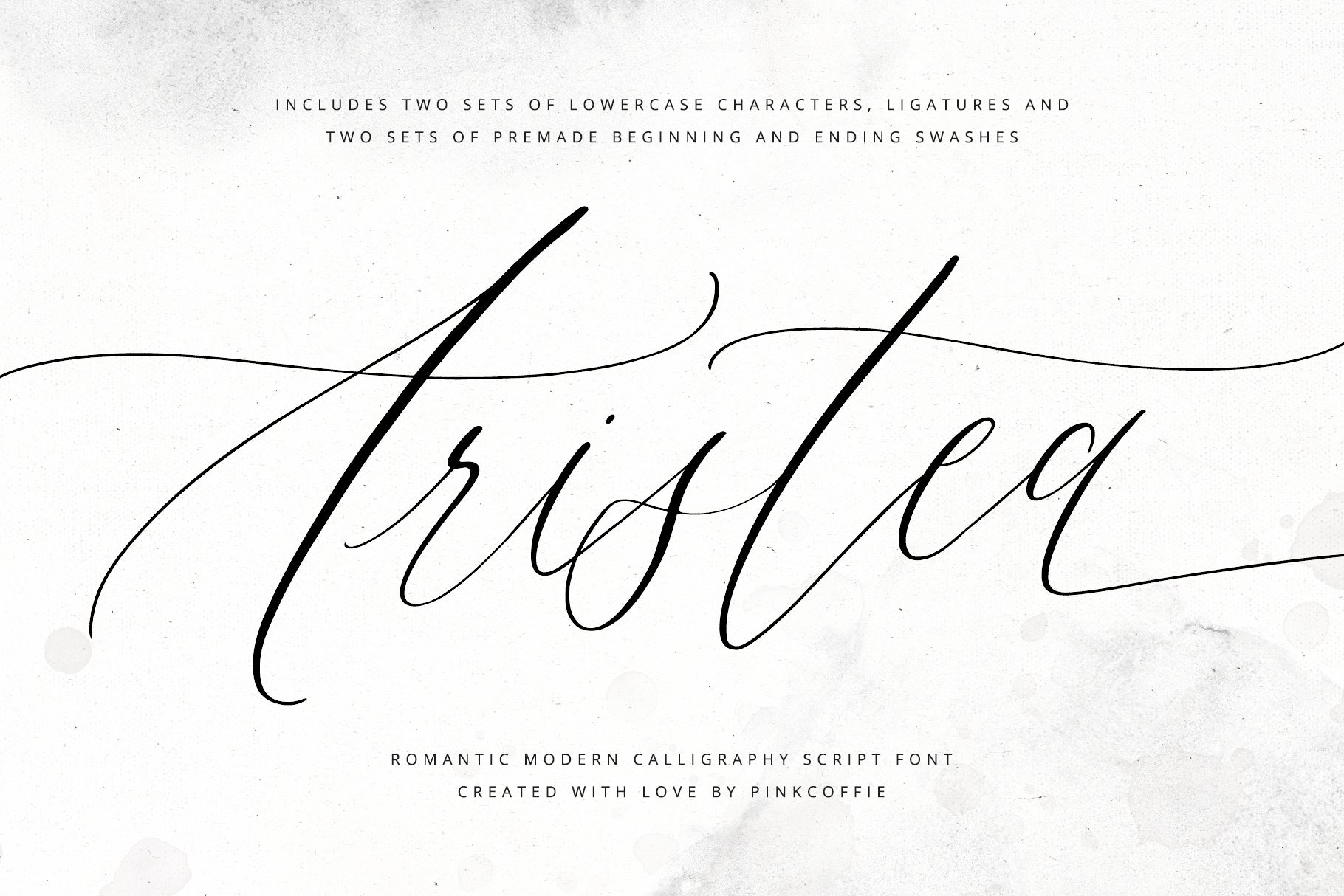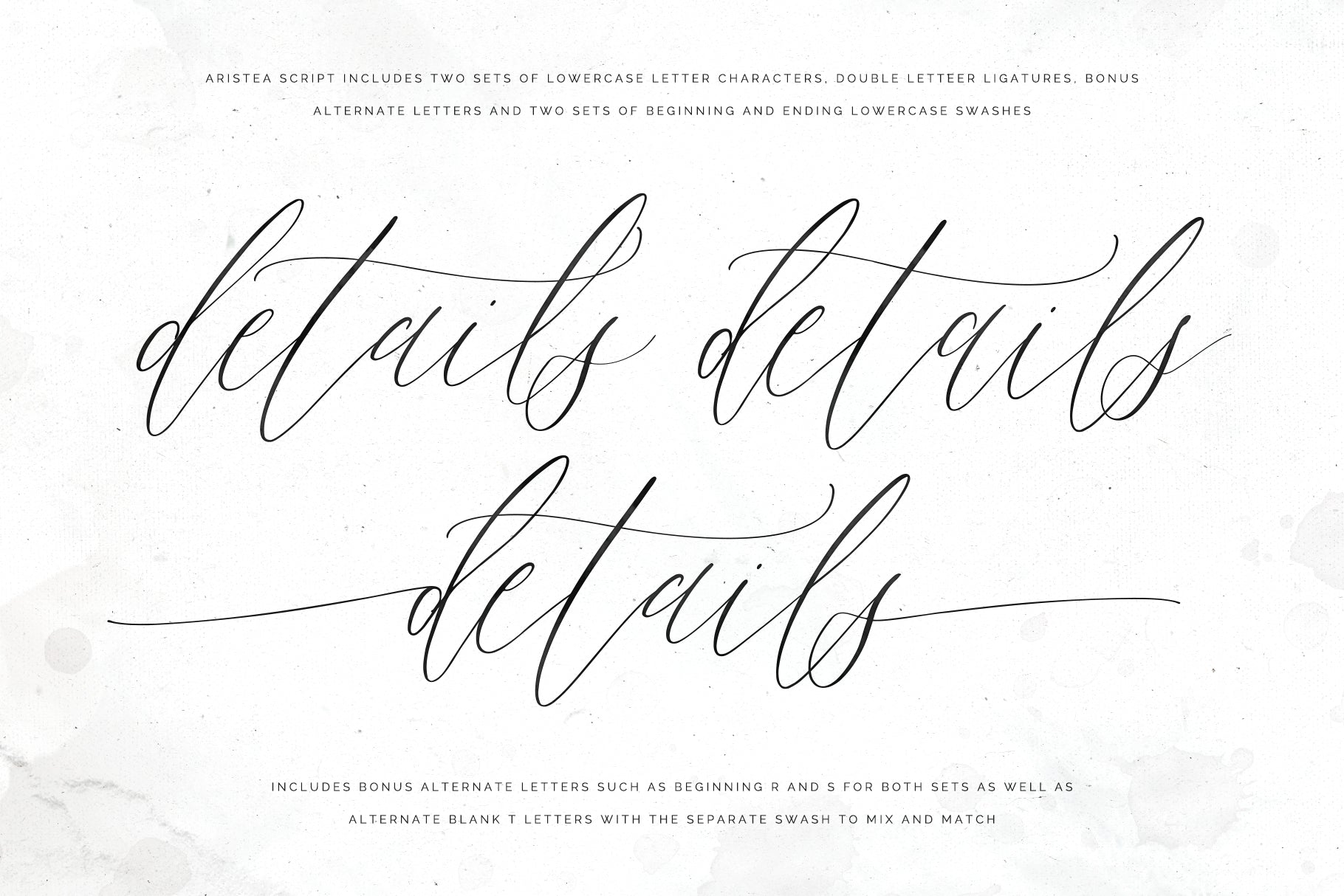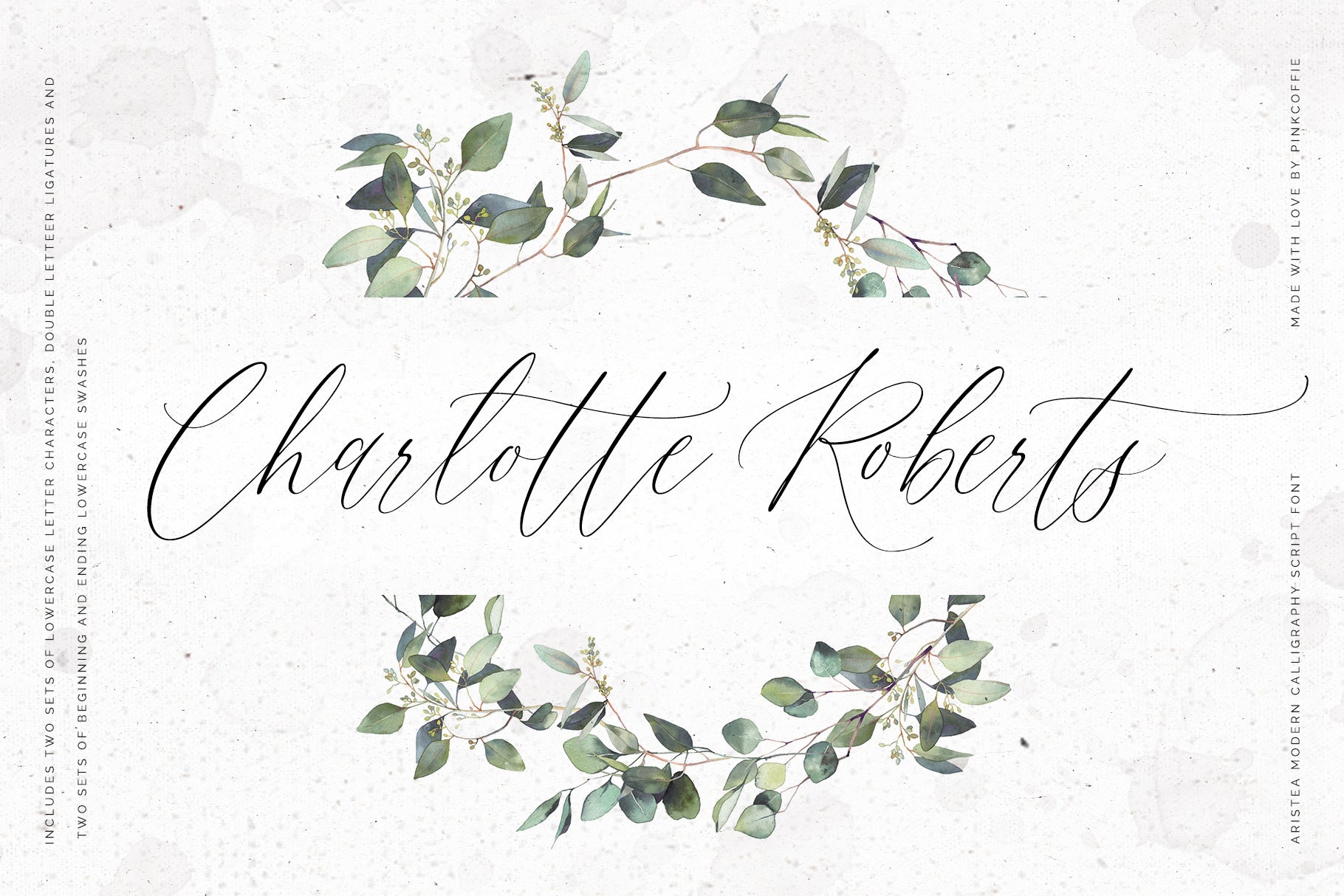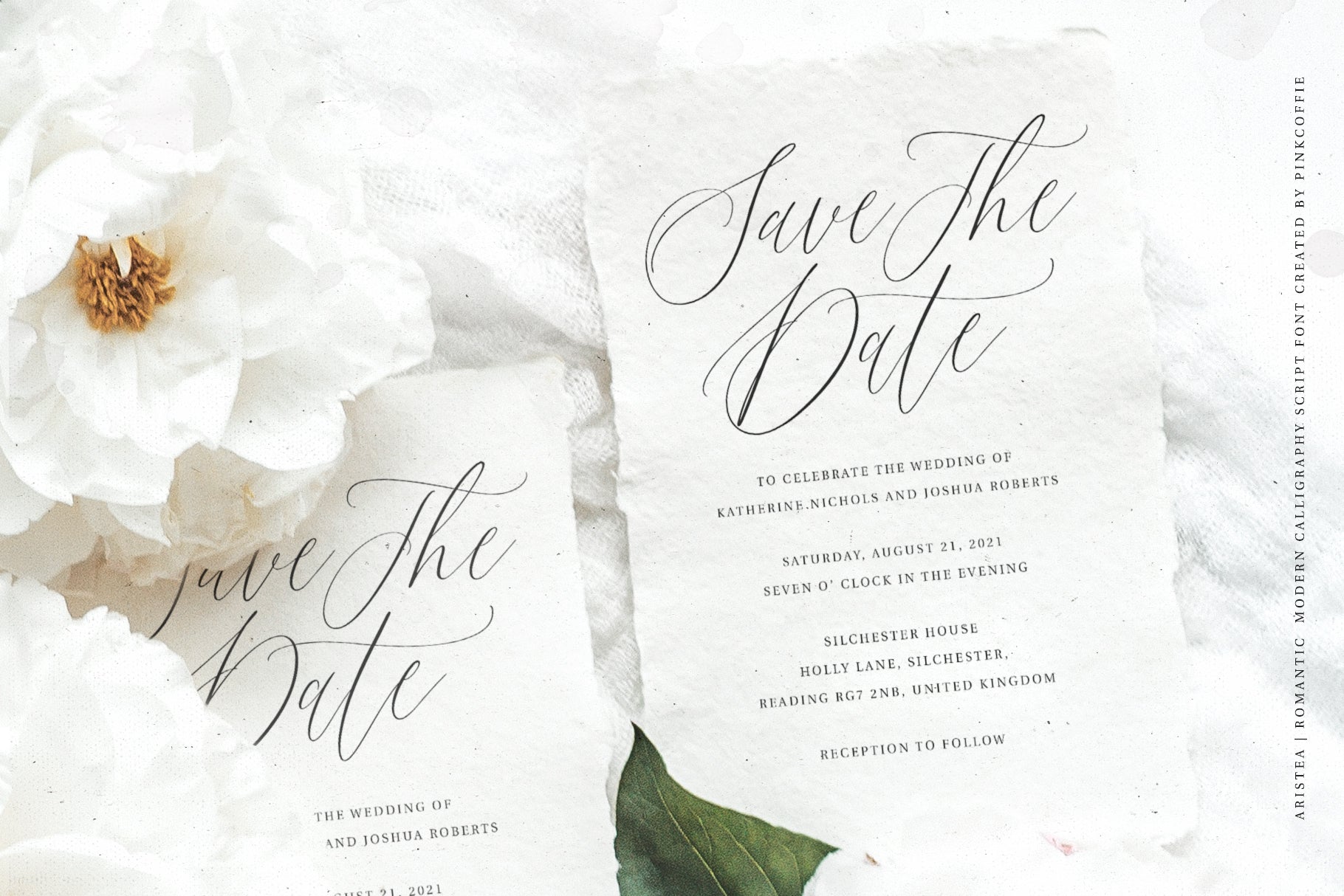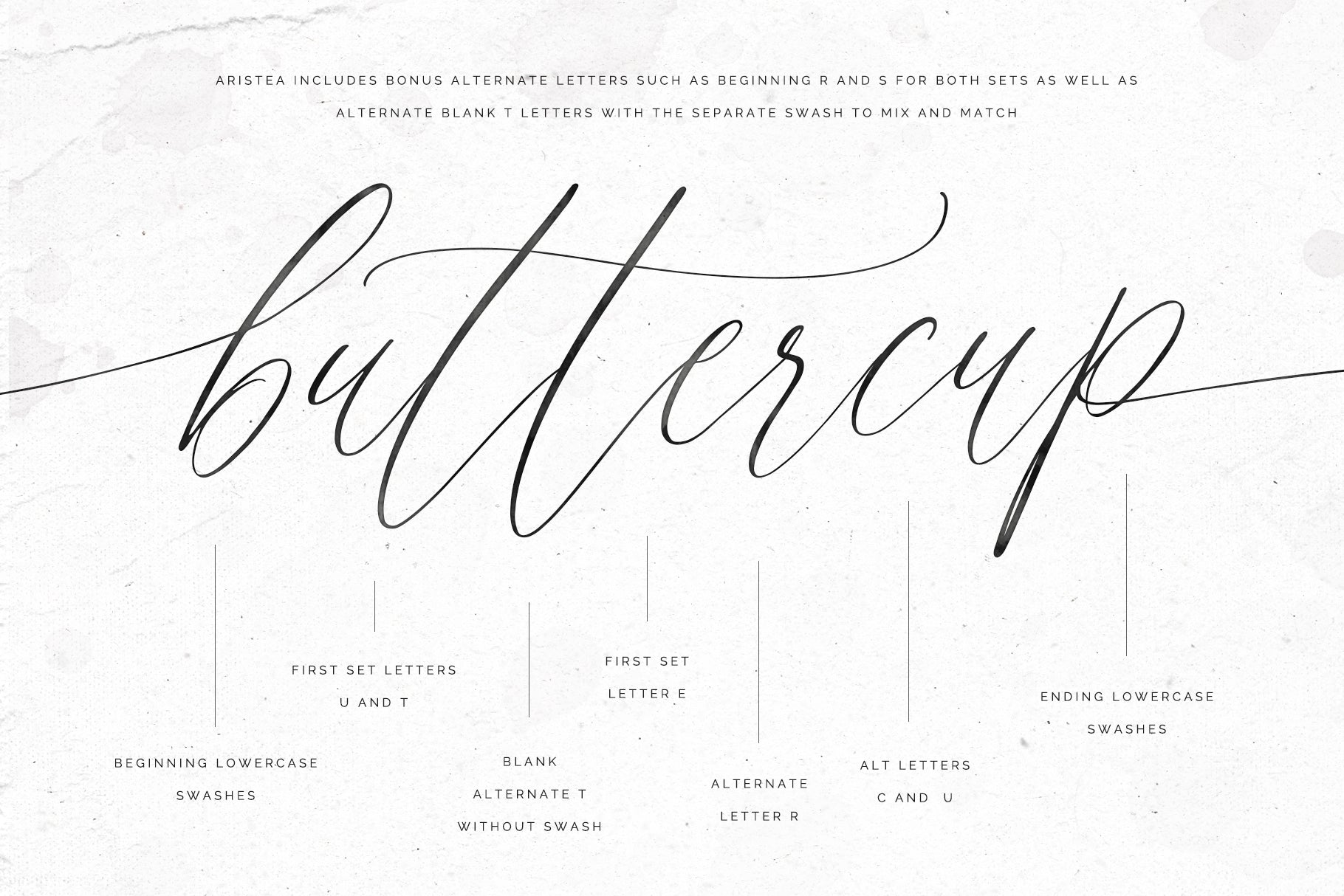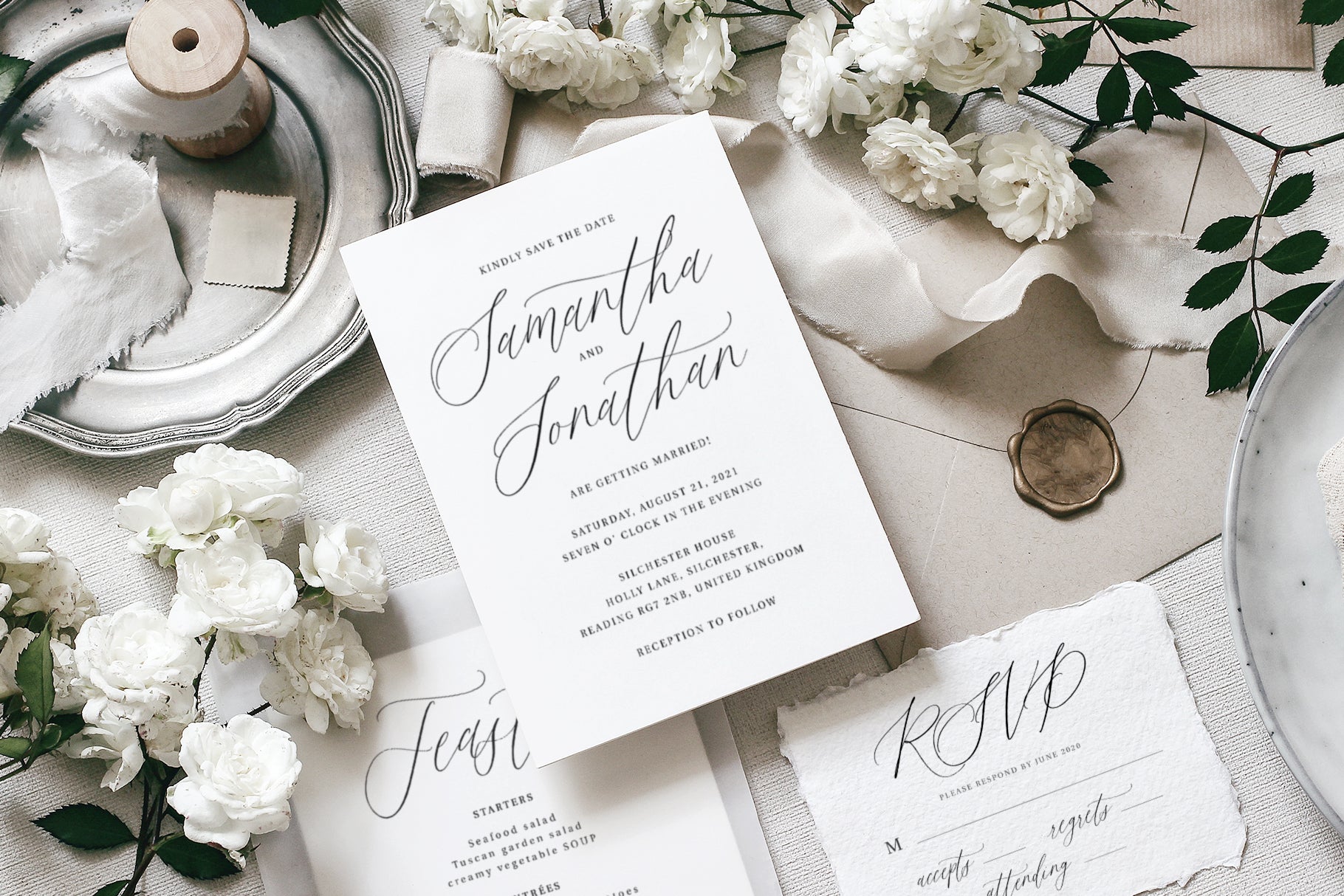
Say hello to Aristea, a romantic modern calligraphy script font featuring two lowercase letter sets, double-letter ligatures, bonus alternates for t, r, and s letters, multilingual support, and two sets of premade beginning and ending swashes to mix and match.
Aristea can be used for various projects including but not limited to wedding stationery, bridal shower Invitation templates, birthday invitations, printables, planners, seating chars, save the dates, wedding websites, prints, feminine website themes, branding, logos, apparel, and much, much more!